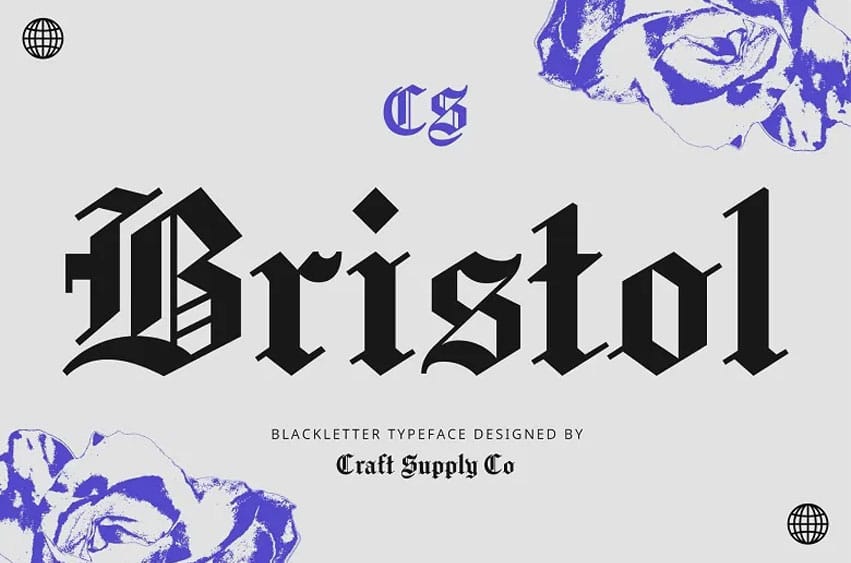
CS Bristol Font Old English and also known as Blackletter, CS Bristol Font is a fine display serif fonts style.
This font is a mingling of conventional old-fashioned English sentence decorating styles and some artsy elements of the historical times, and it’s cut sharp and bold exuding an aura of respectable sophistication.